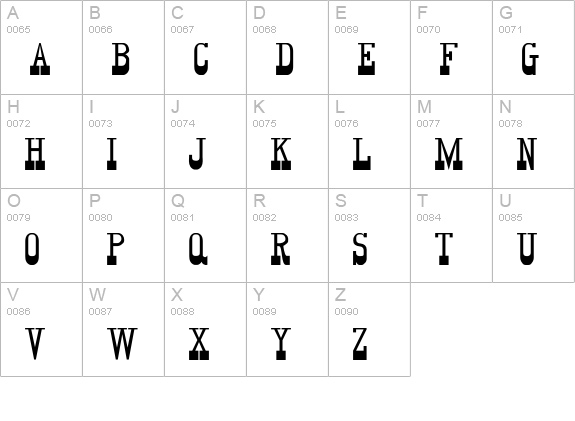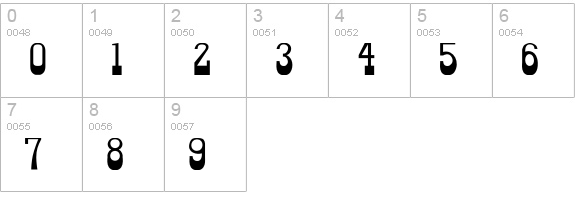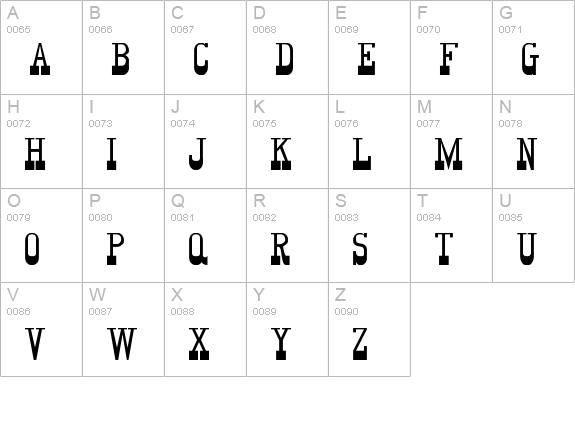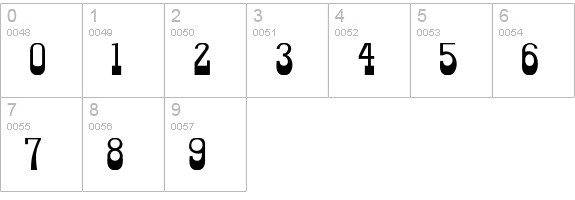
Squawvalley Font Details
Squawvalley, a magnificent font that embodies elegance and sophistication, is here to elevate your design projects to new heights. With its sleek lines and delicate curves, Squawvalley effortlessly captures attention and adds a touch of glamour to any piece of artwork. This versatile font is perfect for a wide range of design purposes, from branding and advertising to invitations and editorial layouts. Its timeless appeal makes it suitable for both modern and classic designs, ensuring that it never goes out of style. Whether you're working on a logo, a website, or a poster, Squawvalley will bring an air of refinement and professionalism to your project. What's even better is that Squawvalley is free! Yes, you read that right. This exceptional font is freely available to download at FontsMarket.com, making it accessible to designers of all levels. Now you can enhance your designs with this high-quality font without breaking the bank. With Squawvalley, you get more than just a font; you get an opportunity to create captivating and memorable designs that leave a lasting impression. Its clean and crisp letterforms ensure legibility, while its unique personality adds a touch of sophistication. Whether you're aiming for a bold and impactful statement or a subtle and elegant touch, Squawvalley has got you covered. So why wait? Go ahead and download Squawvalley from FontsMarket.com today and unleash your creativity. Elevate your designs with this exquisite font, and let it take your projects to the next level. Experience the beauty and versatility of Squawvalley, and see why it has become a favorite among designers worldwide.